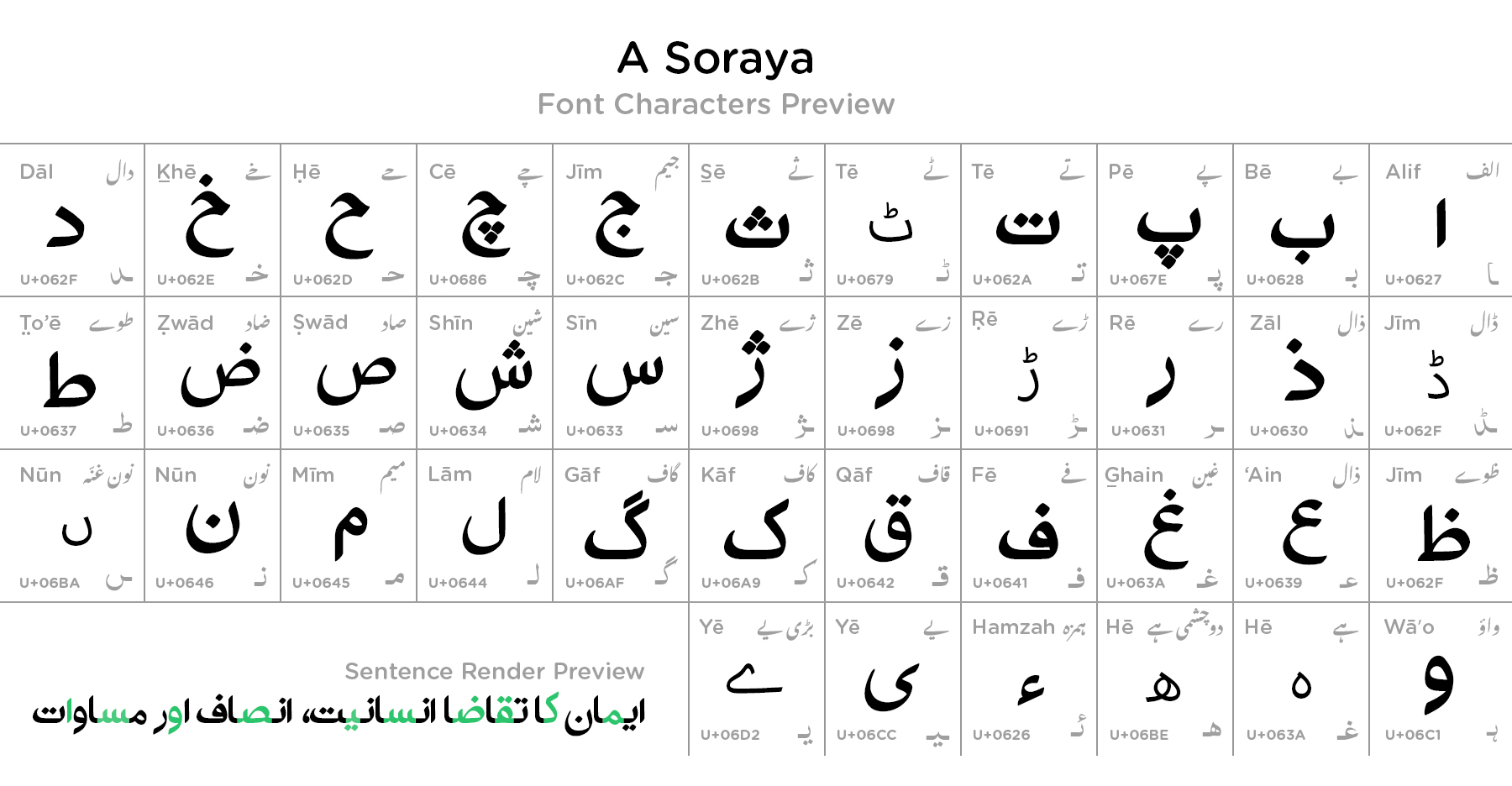
Soraya is a bold Qalam writing Arabic font with a slight flowing effect. It was released on April 9, 2016, and is available for free use at various sites and online vendors. Inspired by the Naskh calligraphy, this font has modern influences. Therefore, it is not strictly a calligraphy typeface. Its design elements include slanted edges, a compact baseline, and horizontal emphasis. With a total of 288 characters and 217 glyphs, you can use this font to cater to projects involving different languages. Moreover, it supports Arabic, Latin, Urdu, and Persian languages, catering to various typographic needs. The font’s thickness varies throughout, adding to its bold and impactful appearance, and its solid further gives your text a commanding outlook.
A defining feature of A Soraya is its corners and edges, which are blunt yet adorned with calligraphic details. Despite offering only one weight, this font excels in titles, headings, posters, logos, and branding materials. However, its practicality may be limited due to the absence of additional weights. In terms of spacing, this font has a monospaced approach with evenly distributed letters. While it can be used for long text passages, its bold appearance makes it particularly suitable for short texts. Also, it maintains high legibility even at smaller resolutions, ensuring readability across various digital and print platforms. Equipped with Unicode blocks such as Basic Latin, Latin-1 Supplement, Spacing Modifier Letters, Arabic, General Punctuation, Mathematical Operators, Private Use Area, Arabic Presentation Forms-A, and -B, the typeface offers enough flexibility for designers and typographers alike.